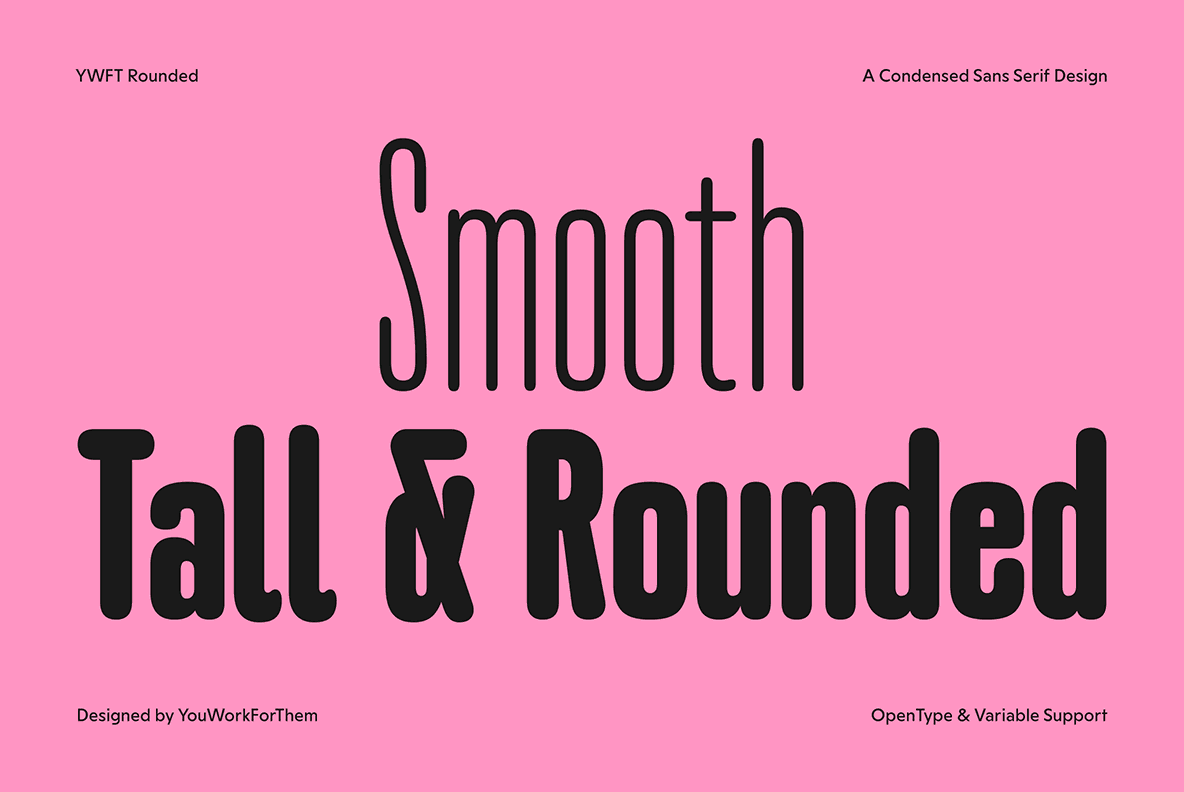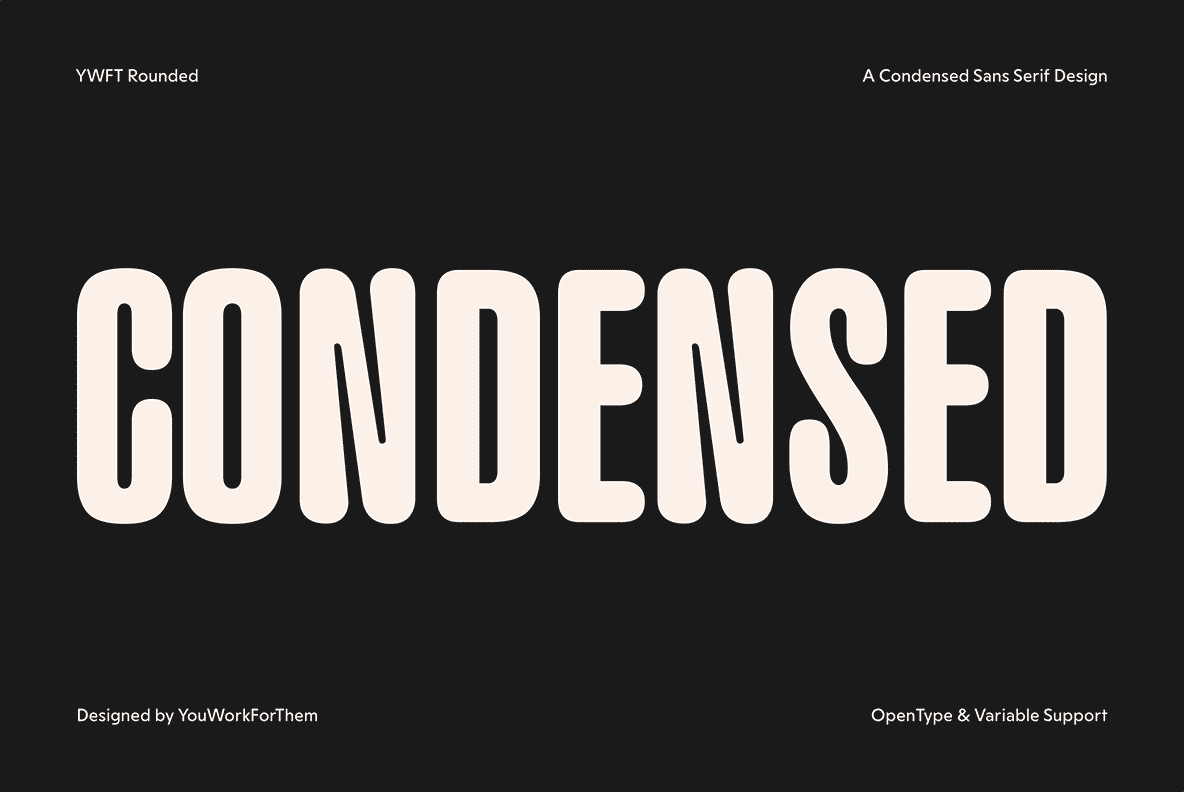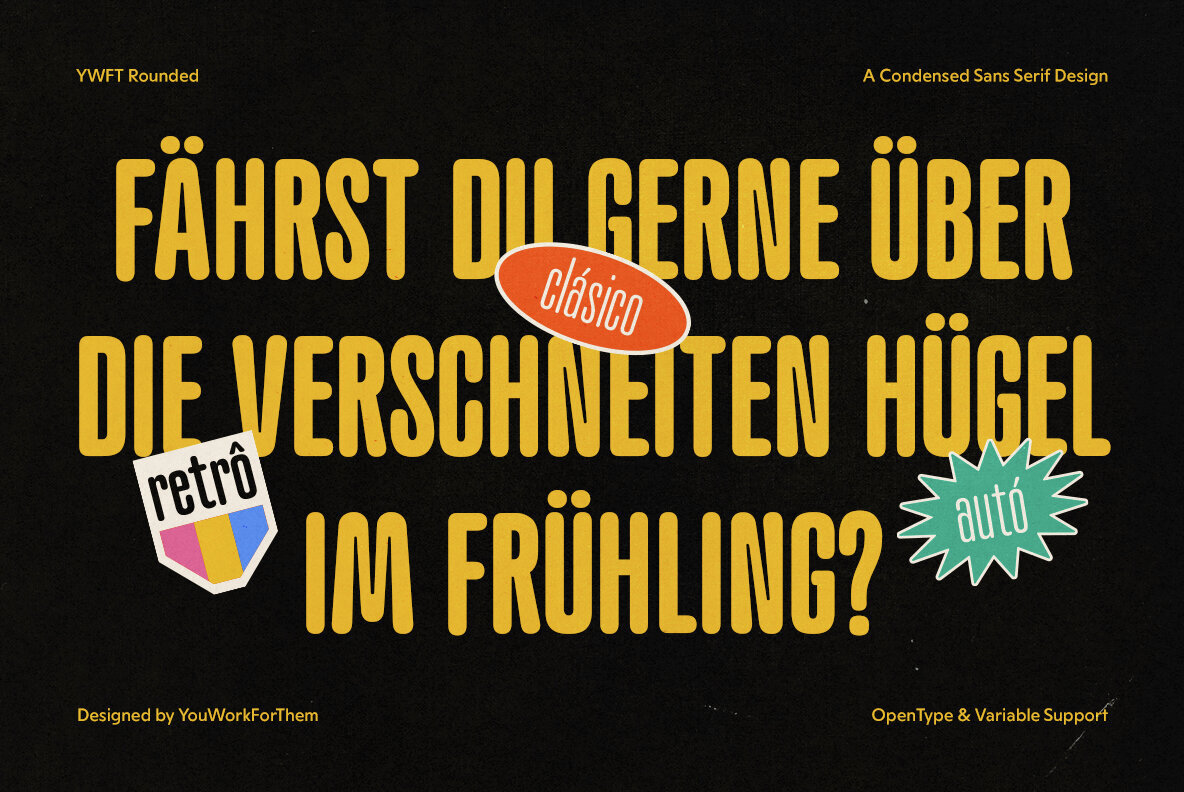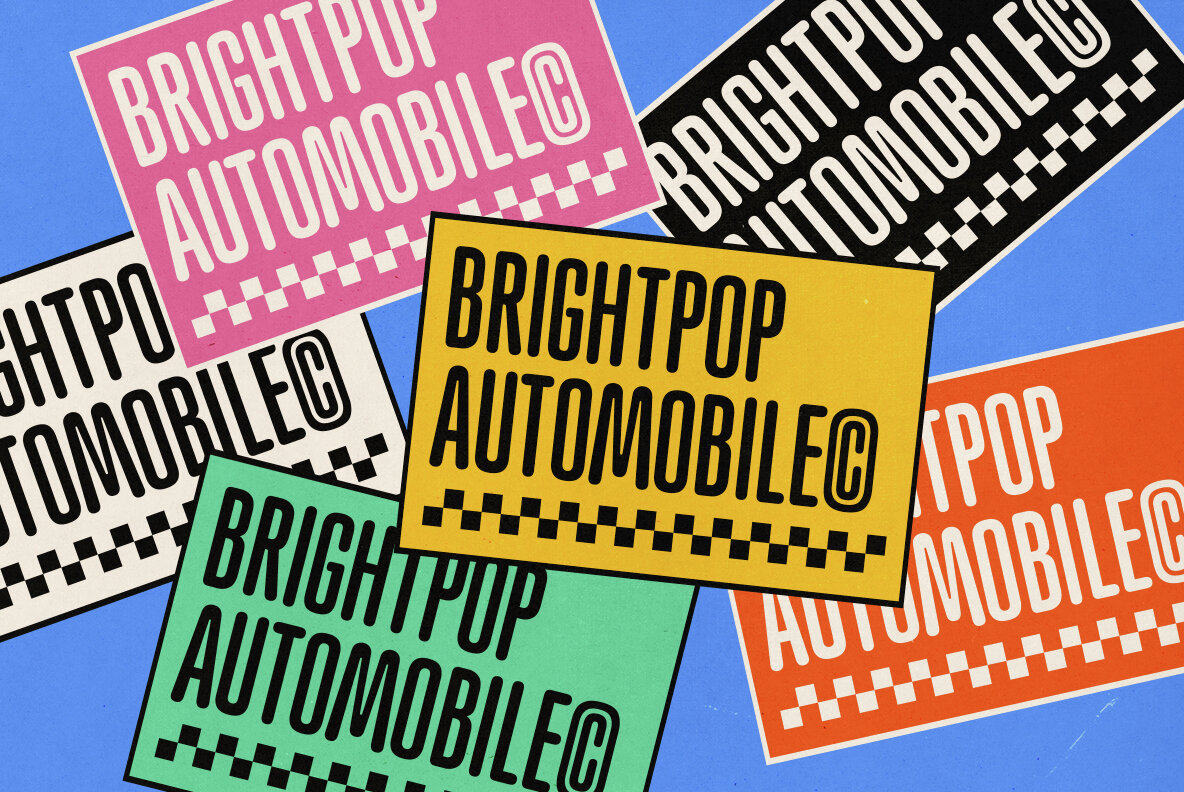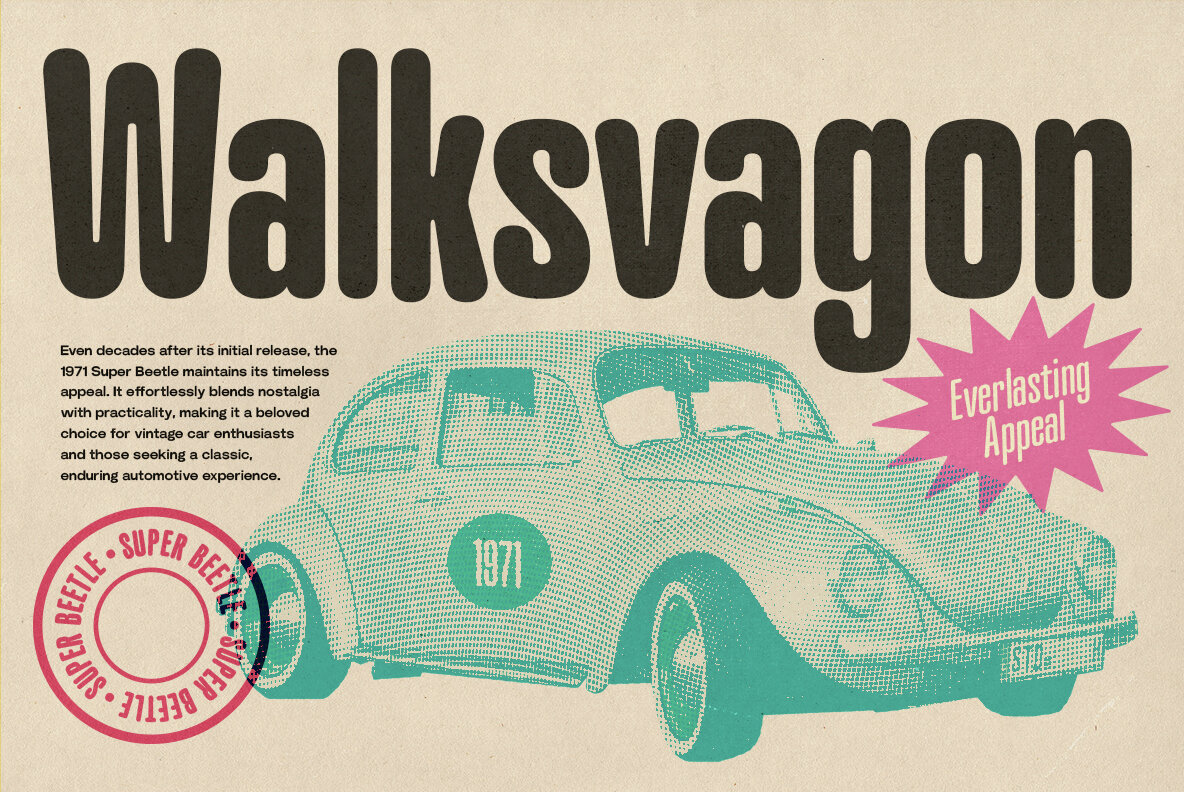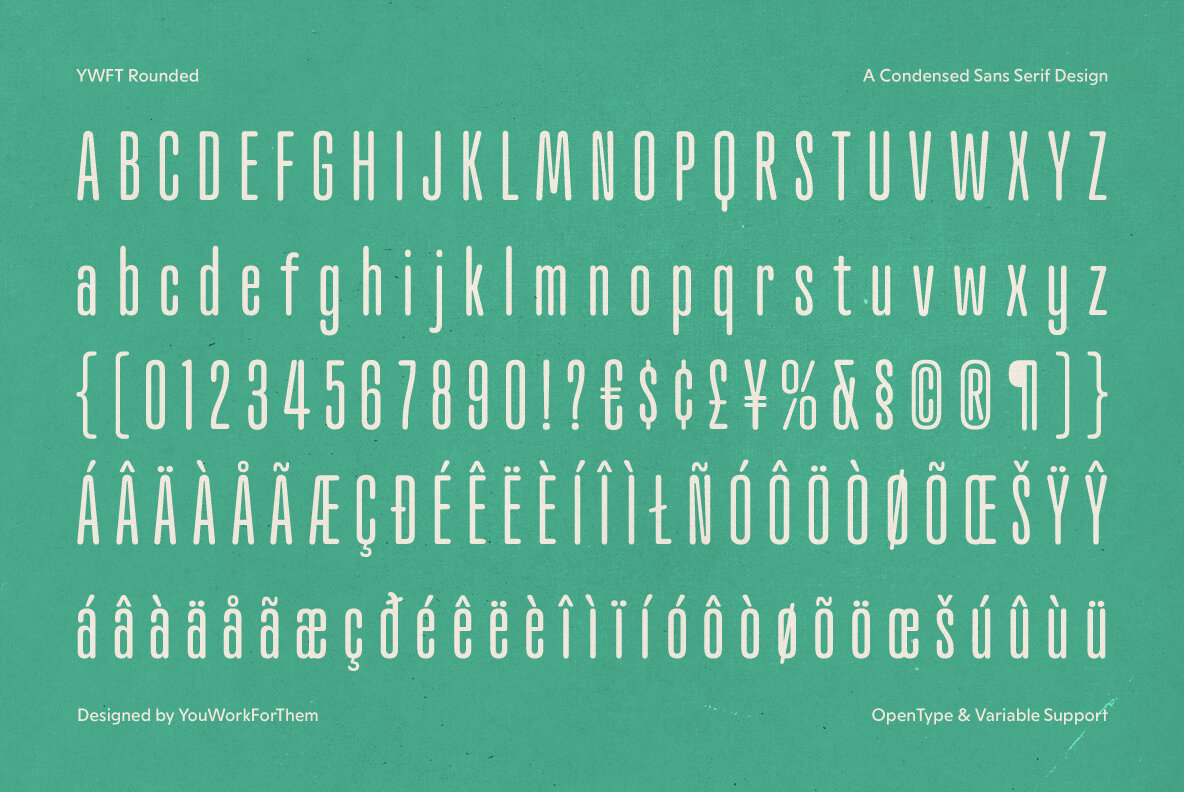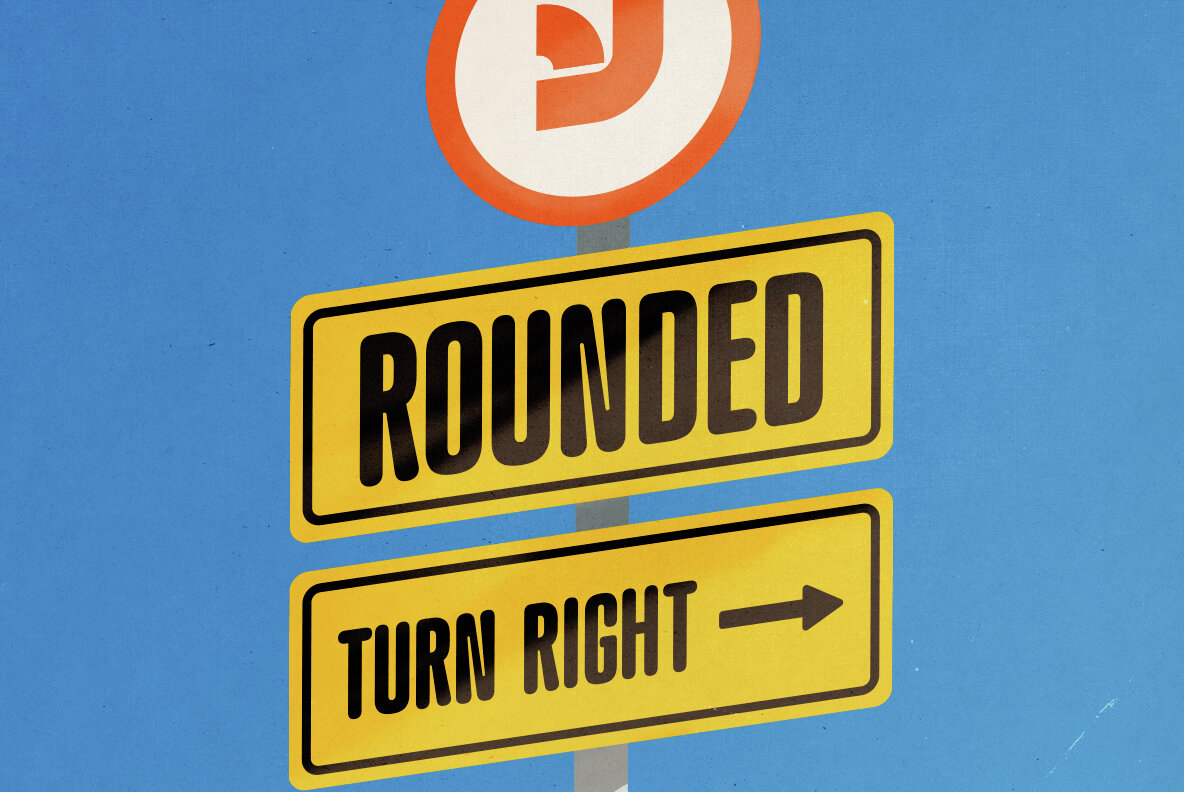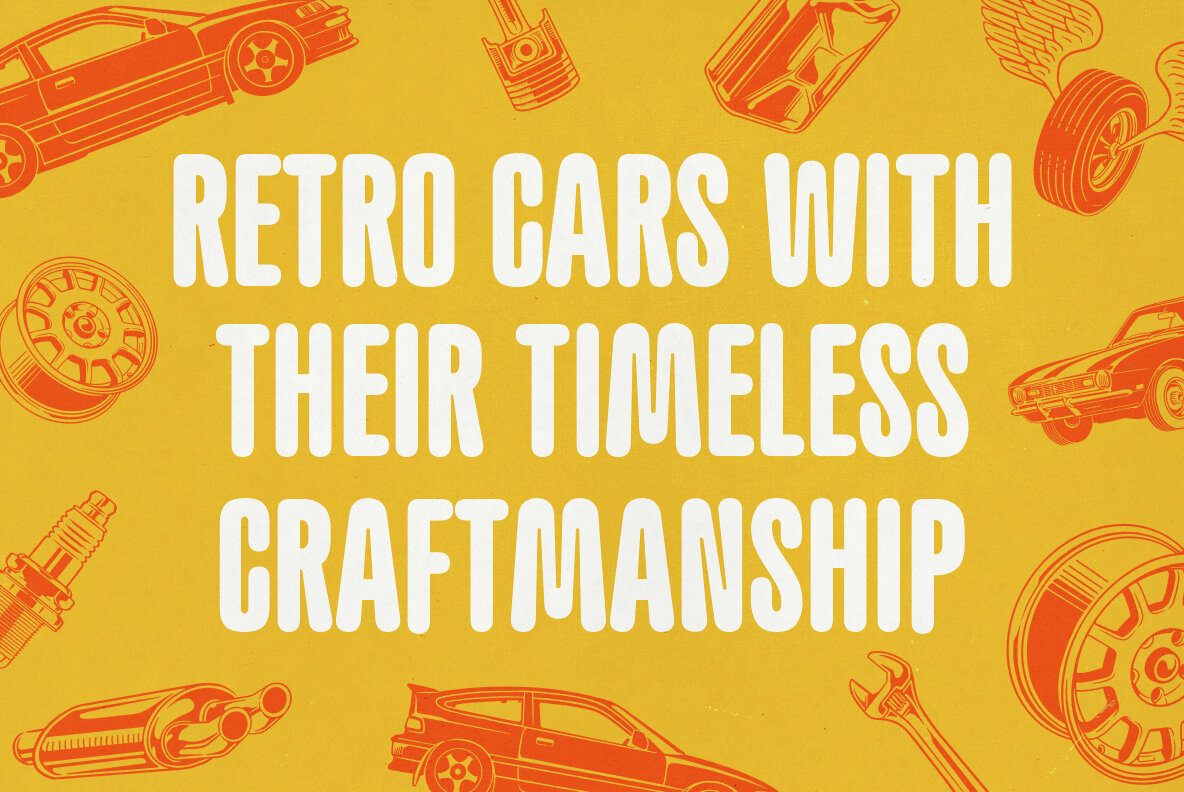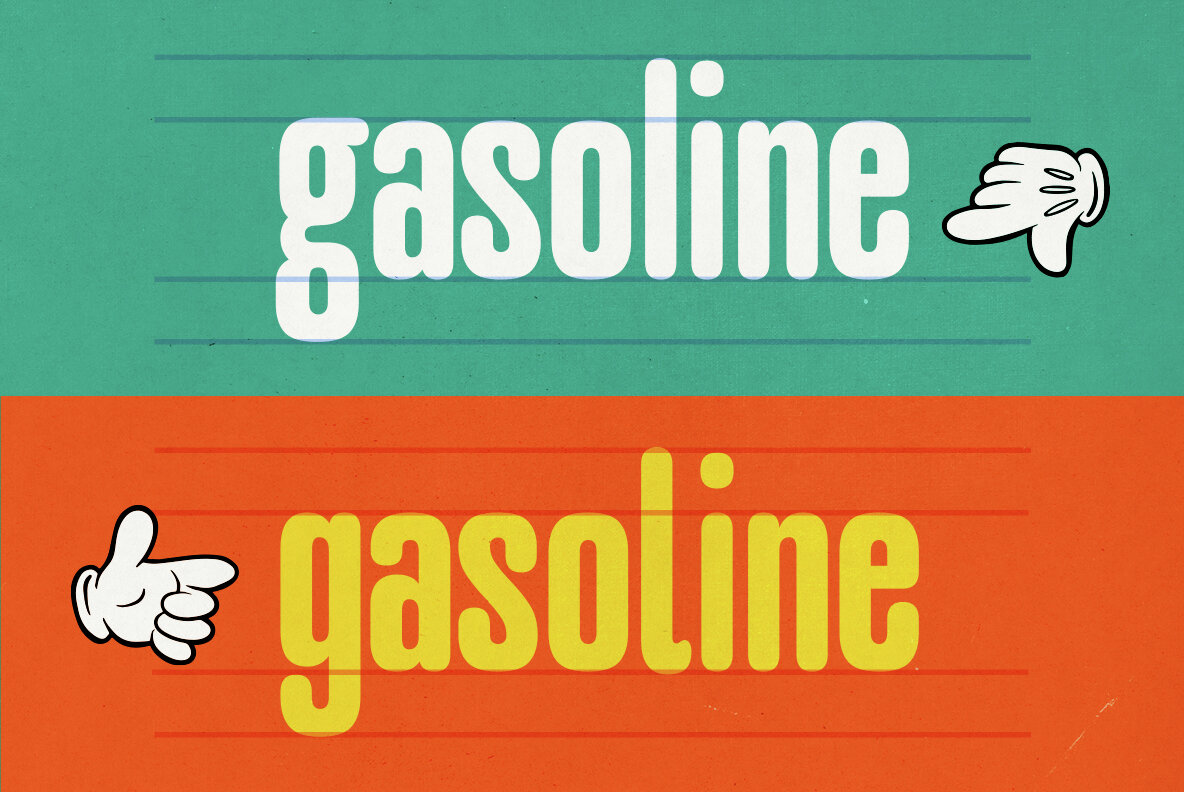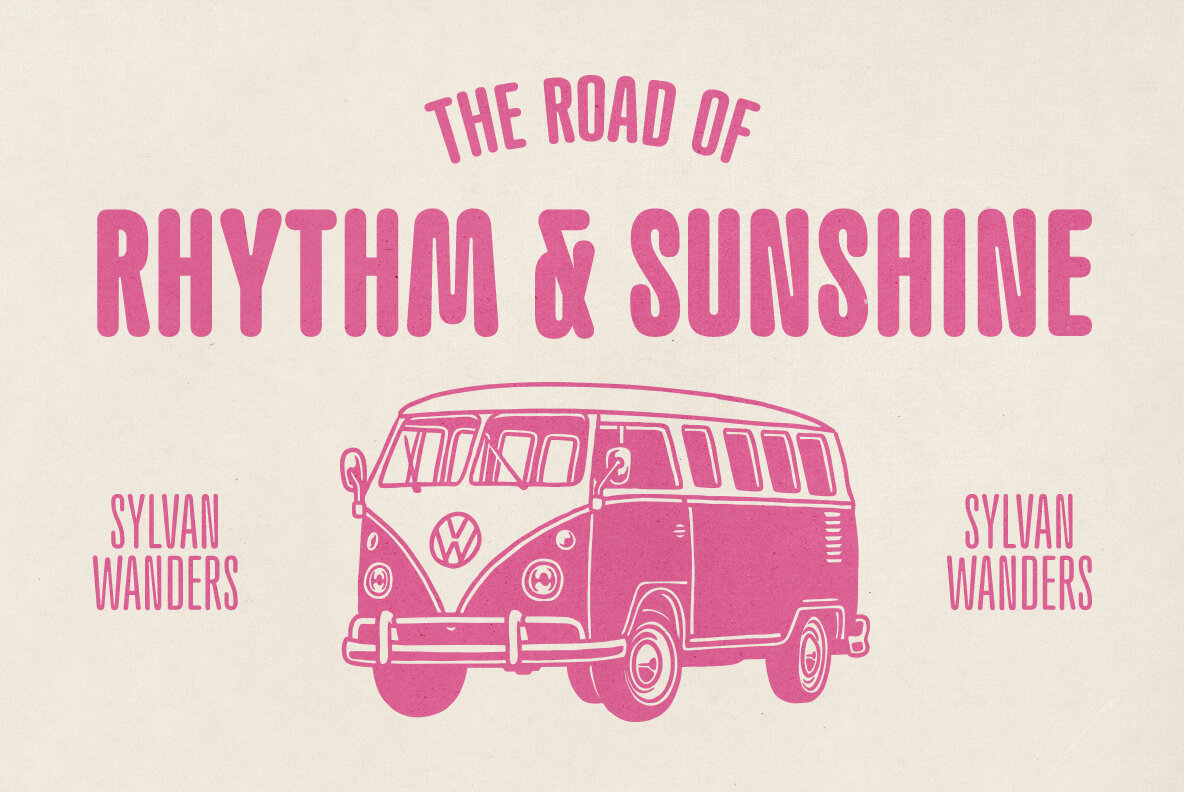
YWFT Rounded Font
Meet YWFT Rounded – where the storied past of VAG Rounded merges with the pulse of today's design trends. Drawing inspiration from the historical font that graced the Volkswagens of the '70s, YWFT Rounded embraces the warmth and readability that made VAG Rounded a darling of corporate branding, while infusing it with a modern versatility that speaks directly to the pulse of contemporary design. The VAG Rounded font, with its roots in the 1970s and ties to the automotive industry, was a symbol of approachability and friendliness in a world just getting to grips with the visual language of consumerism. YWFT Rounded builds on this legacy, offering a full suite of eight weights, OpenType Features, Varaible font features, and a rich set of over 250 glyphs per weight, providing today's designers with the tools to craft messages that resonate with the same clarity and visual comfort, but with the edge that today's design demands. Every curve and line in YWFT Rounded is a homage to the iconic design principles of VAG Rounded – the soft terminals that broke away from the rigidity of the typesetting norms of its time. YWFT Rounded takes these principles and propels them into the digital age, ensuring that whether it's viewed on the high-definition display of the latest smartphone or on the side of a building, it retains its character and legibility. YWFT Rounded isn't just another typeface. It's a bridge between generations, carrying the torch of design from the era of analog into the age of pixels. It's a font for the dreamers, the innovators, the storytellers – for those who see the power of the past but are not bound by it. Embrace YWFT Rounded for your next project and write the next chapter in the story that began with VAG Rounded. With its rich heritage and forward-looking design, YWFT Rounded is your font to make history.YWFT Rounded: The Evolution of a Design Icon
A Nod to the Past, A Leap into the Future
Inspired by History, Designed for Today
Bridging Generations of Design